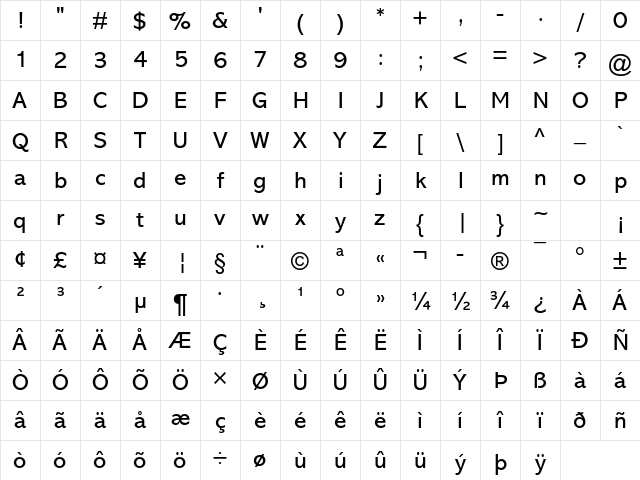
Abadi Regular
Foundry: Monotype Imaging Inc.
Design Context for Abadi
Abadi is a composed and adaptable typeface that performs quietly and consistently across a wide range of design contexts.